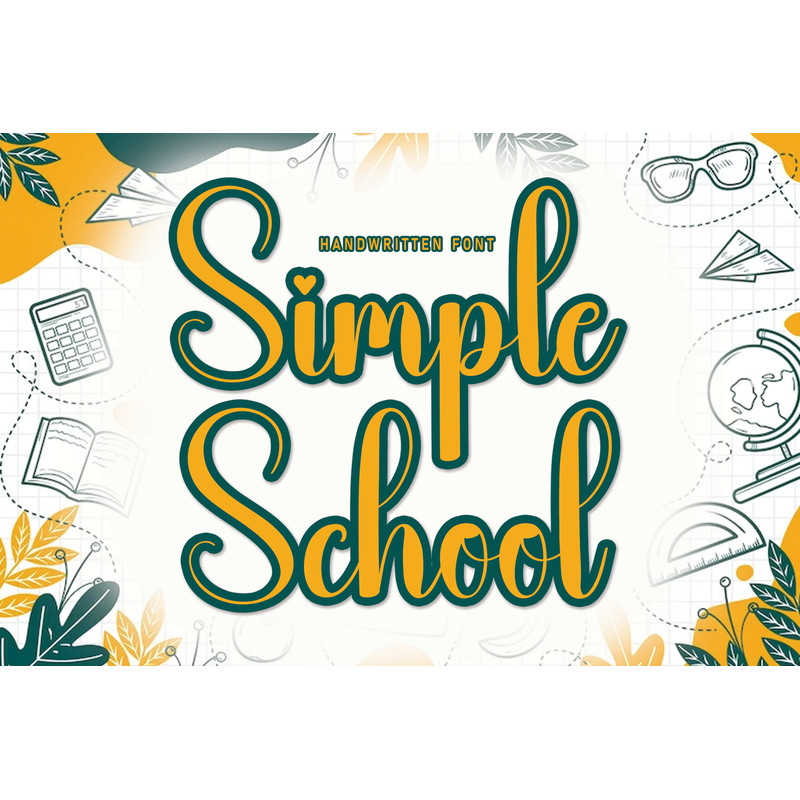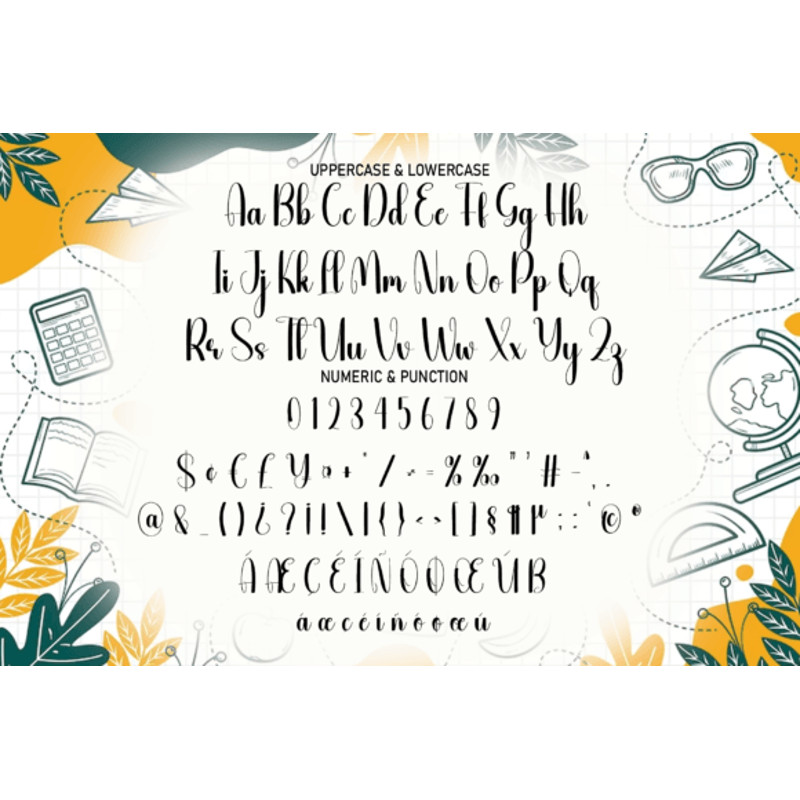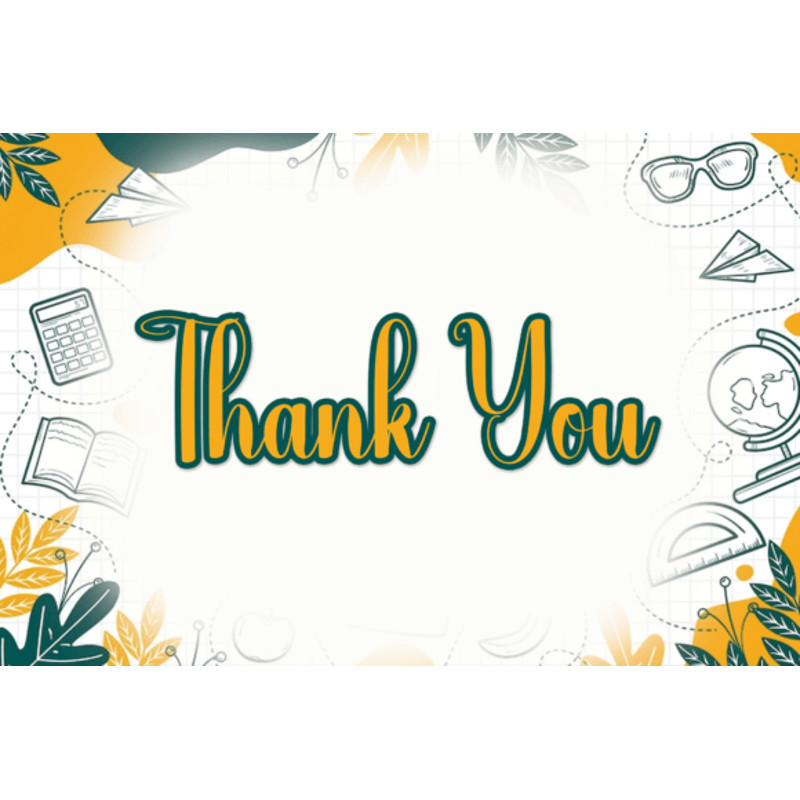
Simple School is a flowing handwritten font, described by an elegant touch, perfect for your favorite projects. Fall in love with its incredibly distinct and timeless style and use it to create spectacular designs!